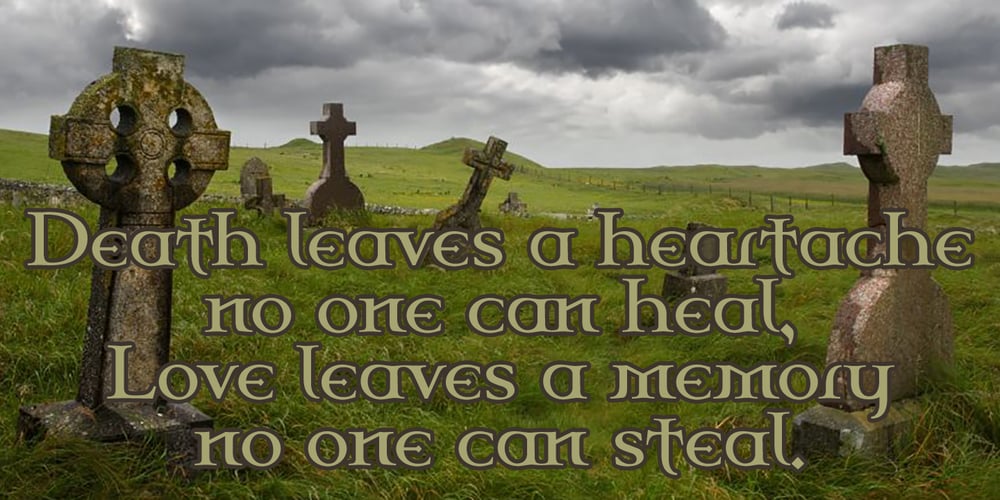
Celtic Garamond Pro
Celtic Garamond Pro font
Celtic Garamond Pro Font Family was designed by Roger S. Nelsson, Levente Halmos and published by CheapProFonts. Celtic Garamond Pro contains 3 styles and family package options. A classical proportioned text font – with a Celtic twist! Perfect for that oldstyle look, but still very readable. I have cleaned up the outlines, improved the spacing and kerning, modified a few letterforms – and then expanded the character set by 440%! A bolder weight has now also been created, and a rough version for a more antique look. ALL fonts from CheapProFonts have very extensive language support: They contain some unusual diacritic letters (some of which are contained in the Latin Extended-B Unicode block) supporting: Cornish, Filipino (Tagalog), Guarani, Luxembourgian, Malagasy, Romanian, Ulithian and Welsh. They also contain all glyphs in the Latin Extended-A Unicode block (which among others cover the Central European and Baltic areas) supporting: Afrikaans, Belarusian (Lacinka), Bosnian, Catalan, Chichewa, Croatian, Czech, Dutch, Esperanto, Greenlandic, Hungarian, Kashubian, Kurdish (Kurmanji), Latvian, Lithuanian, Maltese, Maori, Polish, Saami (Inari), Saami (North), Serbian (latin), Slovak(ian), Slovene, Sorbian (Lower), Sorbian (Upper), Turkish and Turkmen. And they of course contain all the usual “western” glyphs supporting: Albanian, Basque, Breton, Chamorro, Danish, Estonian, Faroese, Finnish, French, Frisian, Galican, German, Icelandic, Indonesian, Irish (Gaelic), Italian, Northern Sotho, Norwegian, Occitan, Portuguese, Rhaeto-Romance, Sami (Lule), Sami (South), Scots (Gaelic), Spanish, Swedish, Tswana, Walloon and Yapese.